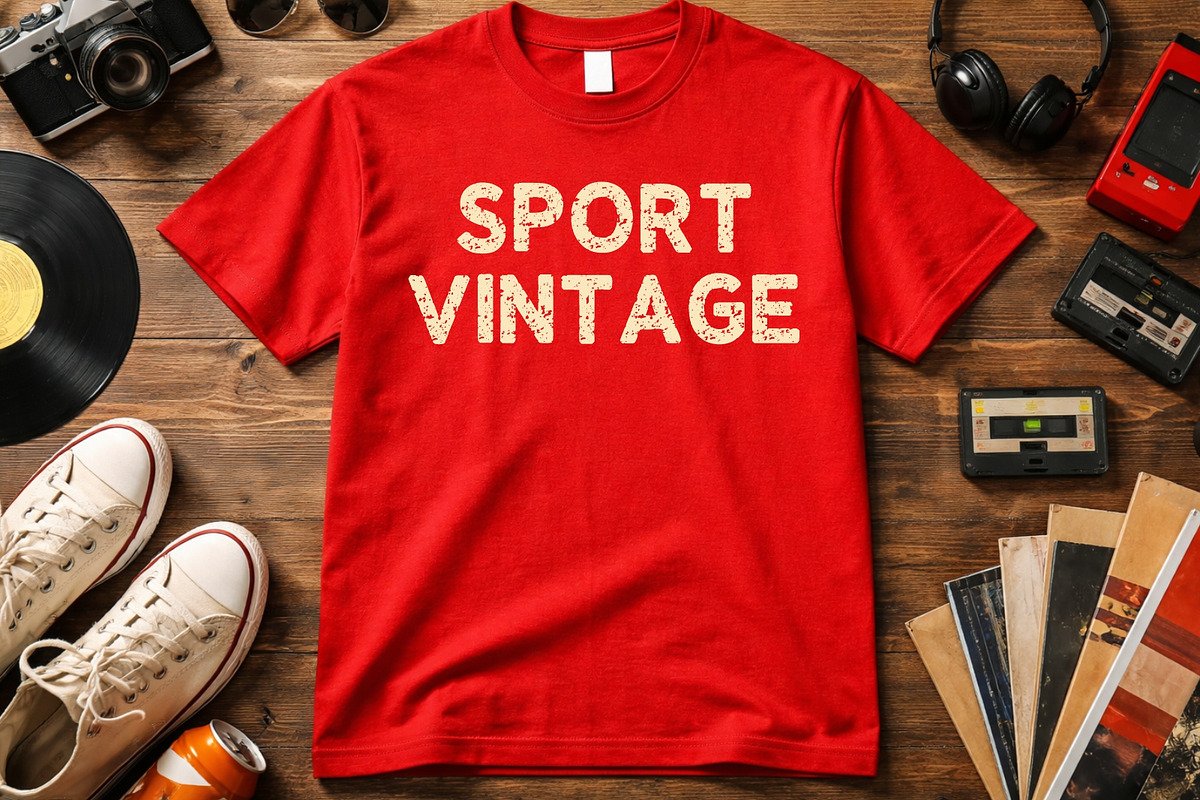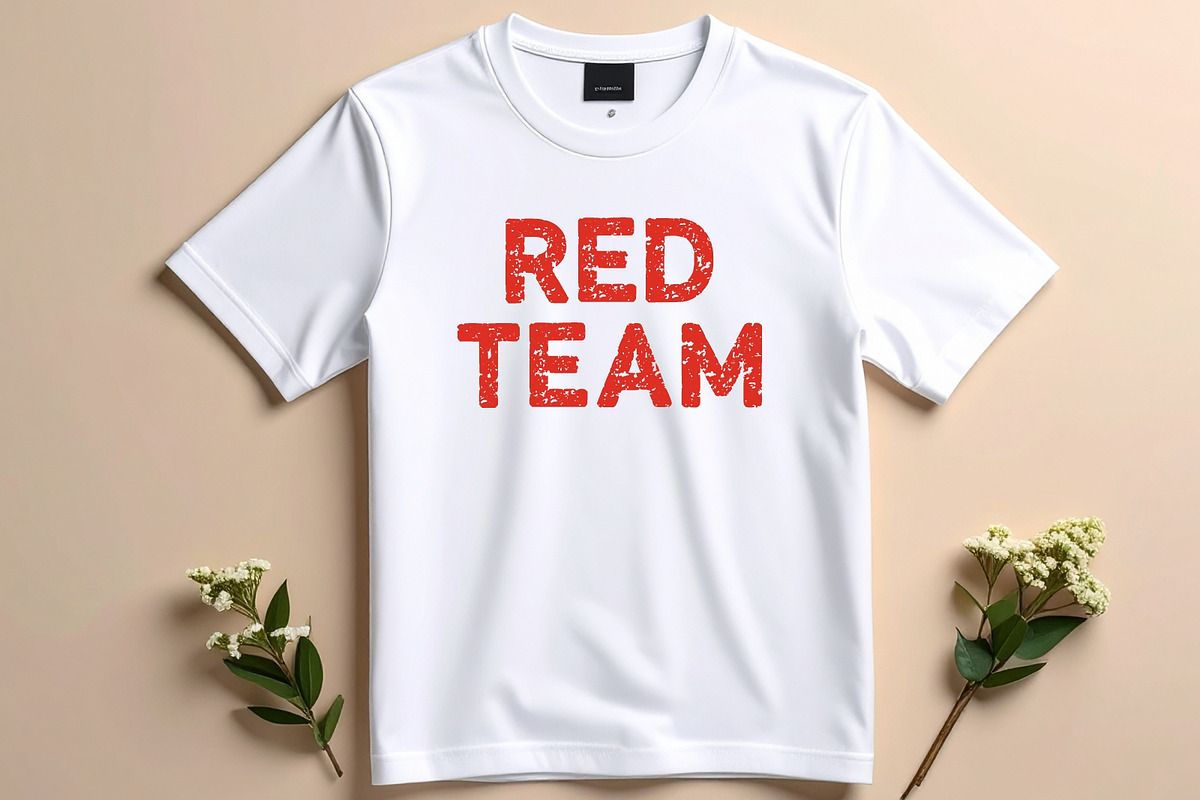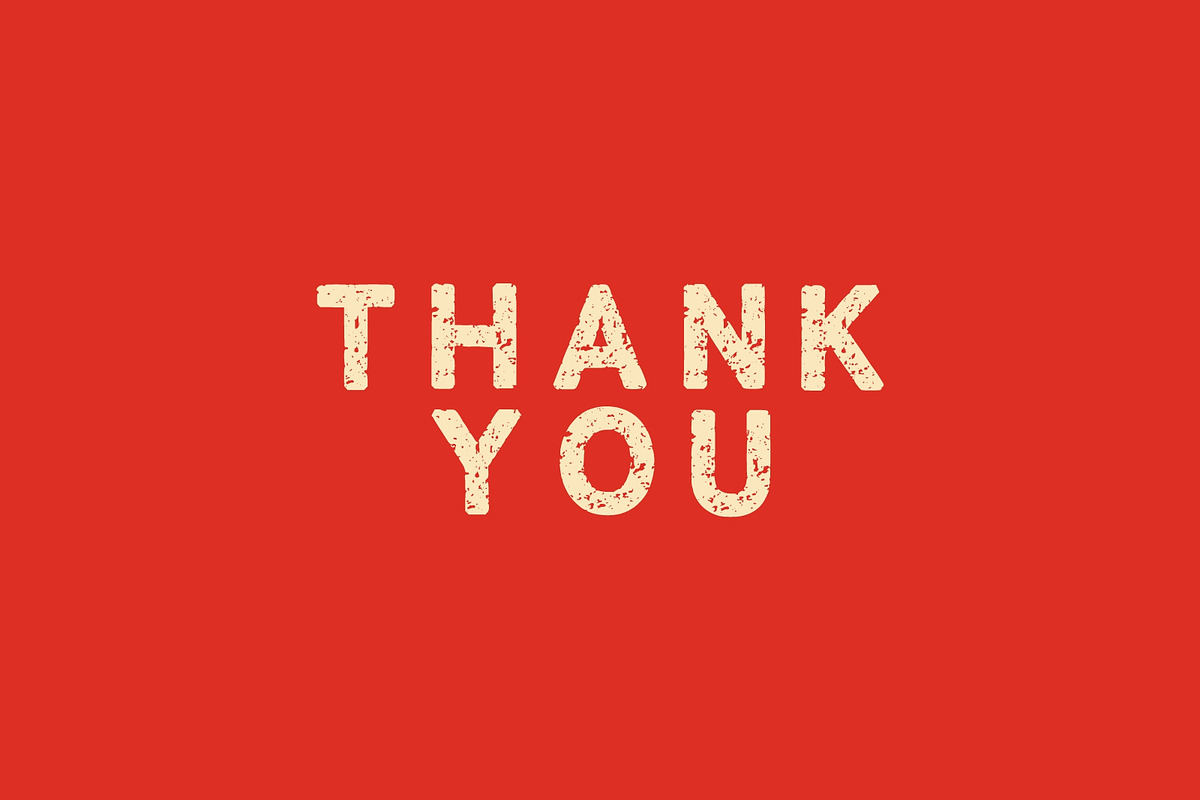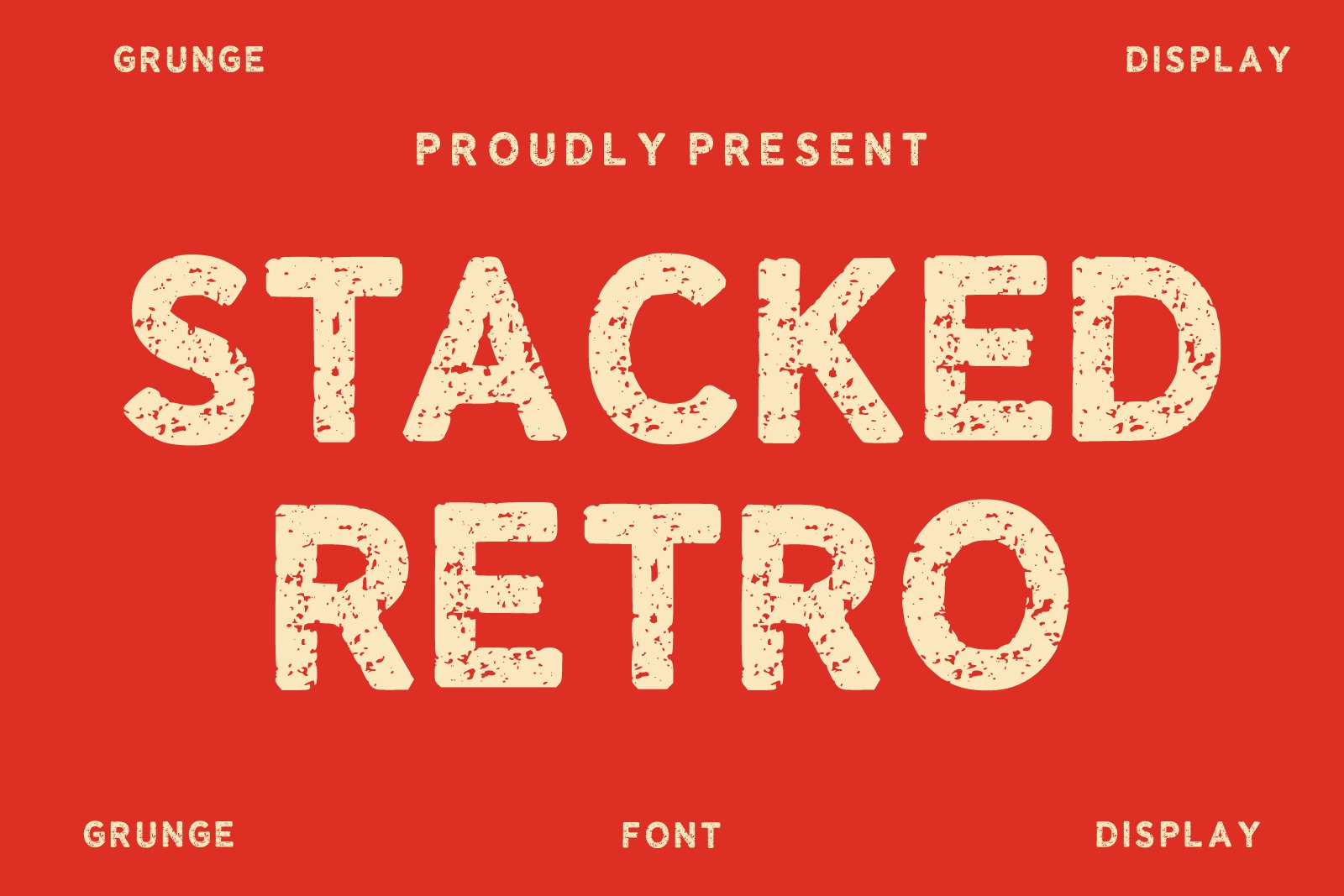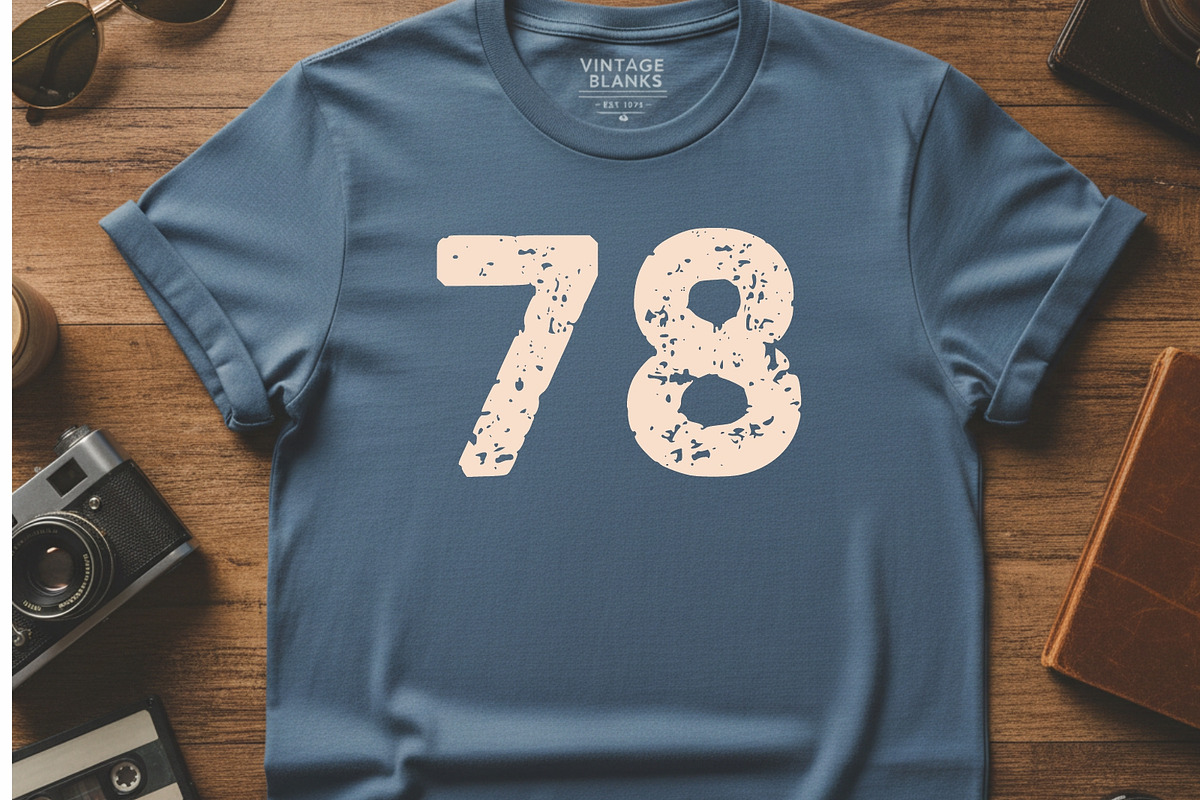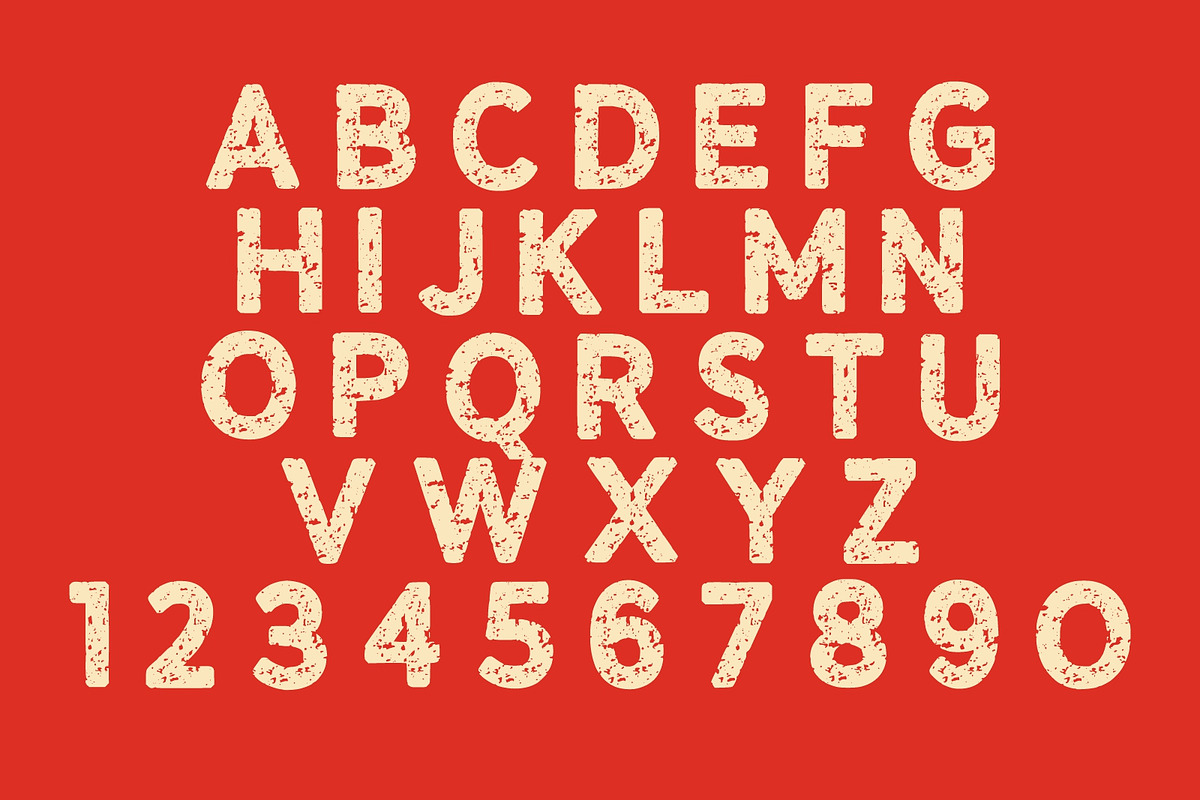
Stacked Retro – Grunge Display Font
Stacked Retro is a bold and rugged grunge display font with a vintage retro personality. Designed with distressed textures and strong letterforms, this font is perfect for creating eye-catching headlines, posters, branding, apparel designs, logos, packaging, and retro-themed projects. Its rough and worn aesthetic gives your designs an authentic vintage look while maintaining a modern and stylish feel. Perfect for streetwear, music posters, sports branding, social media graphics, merchandise, and creative display typography.